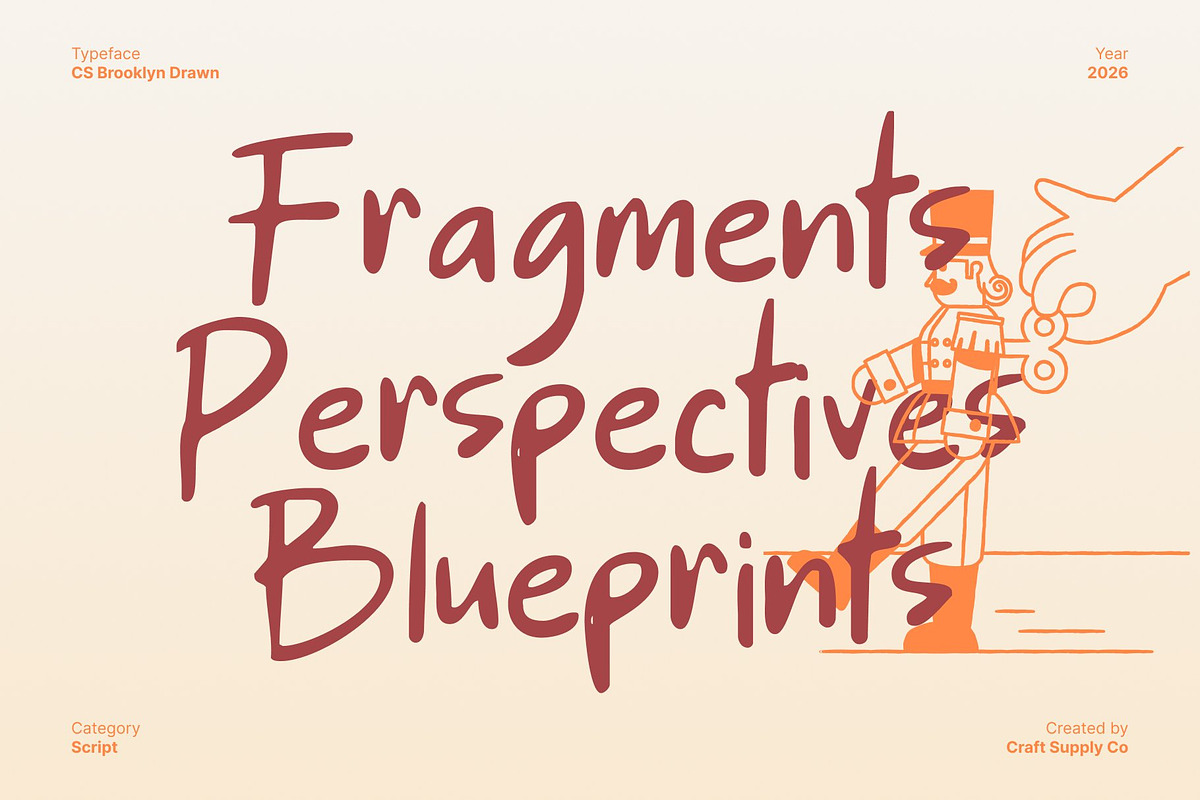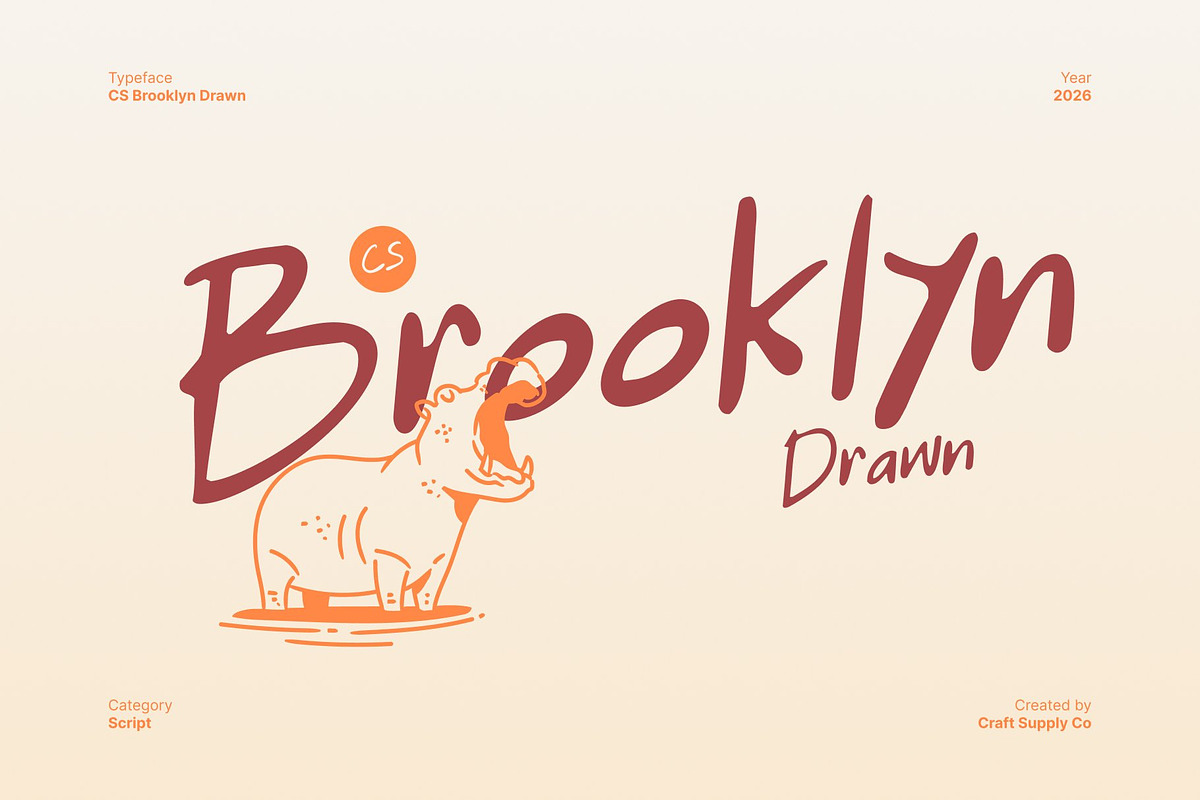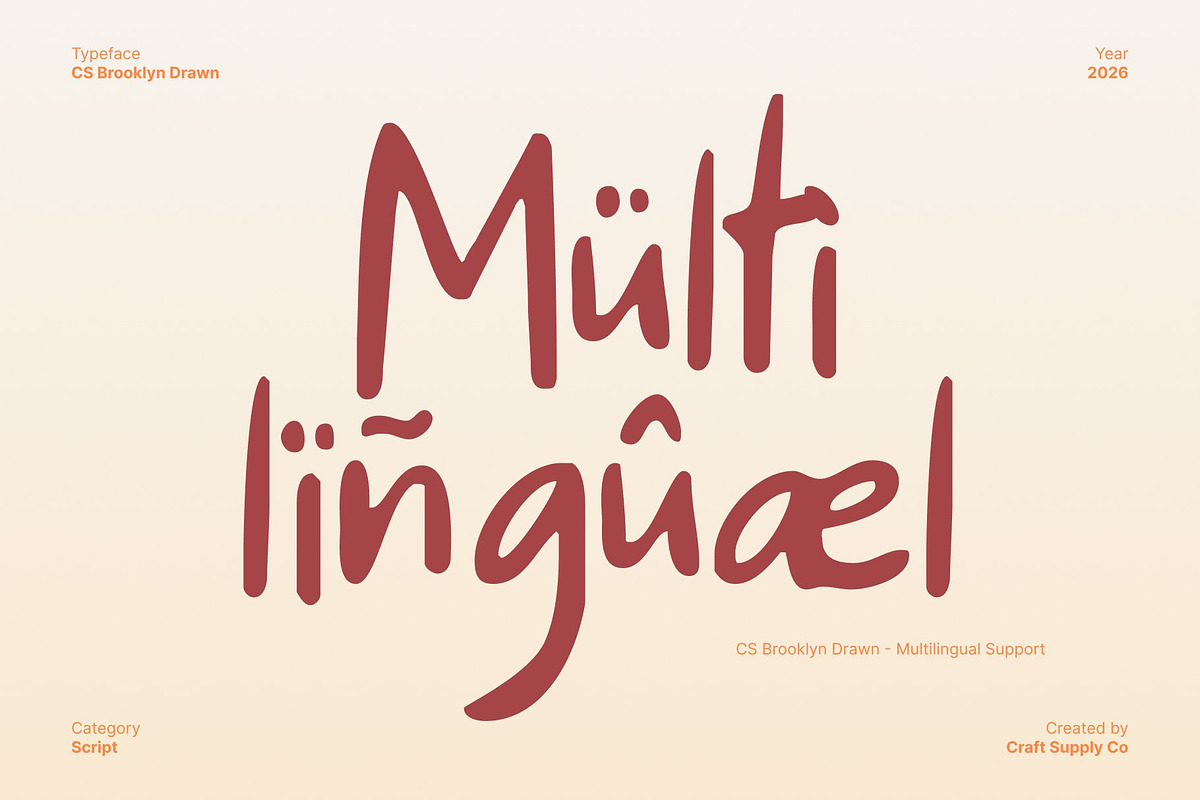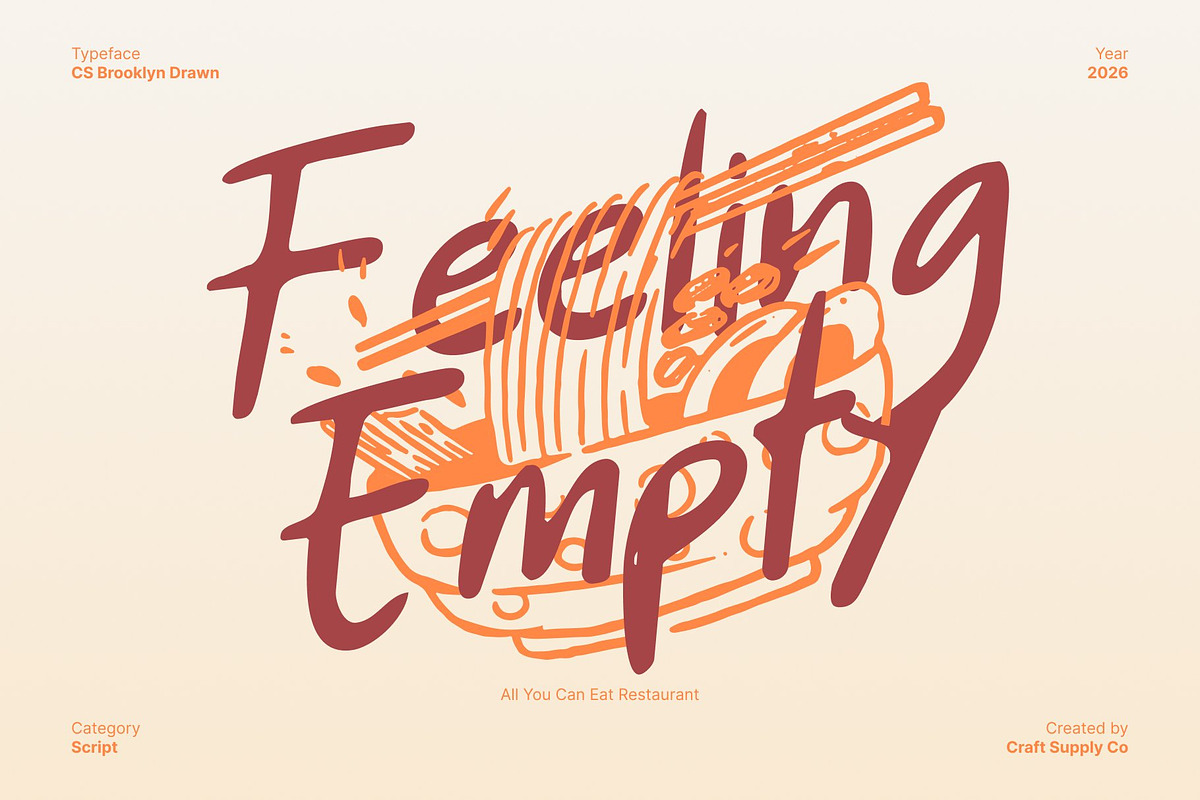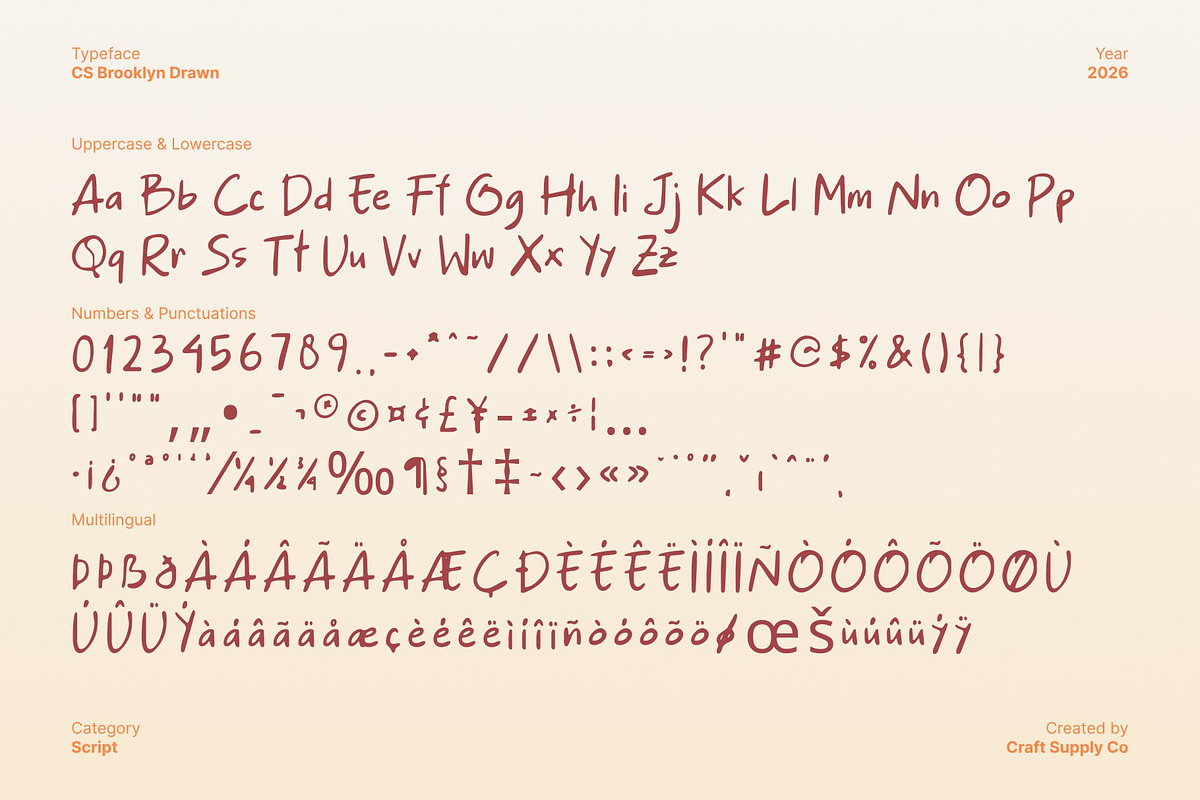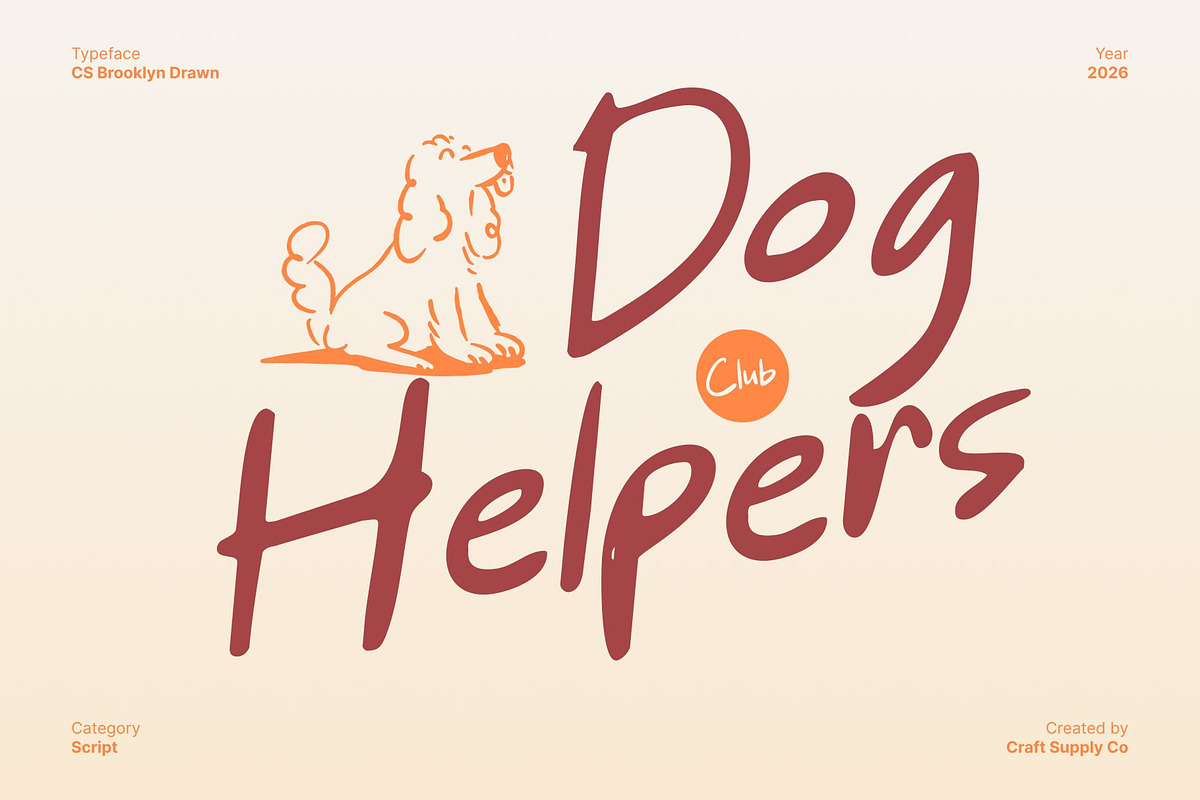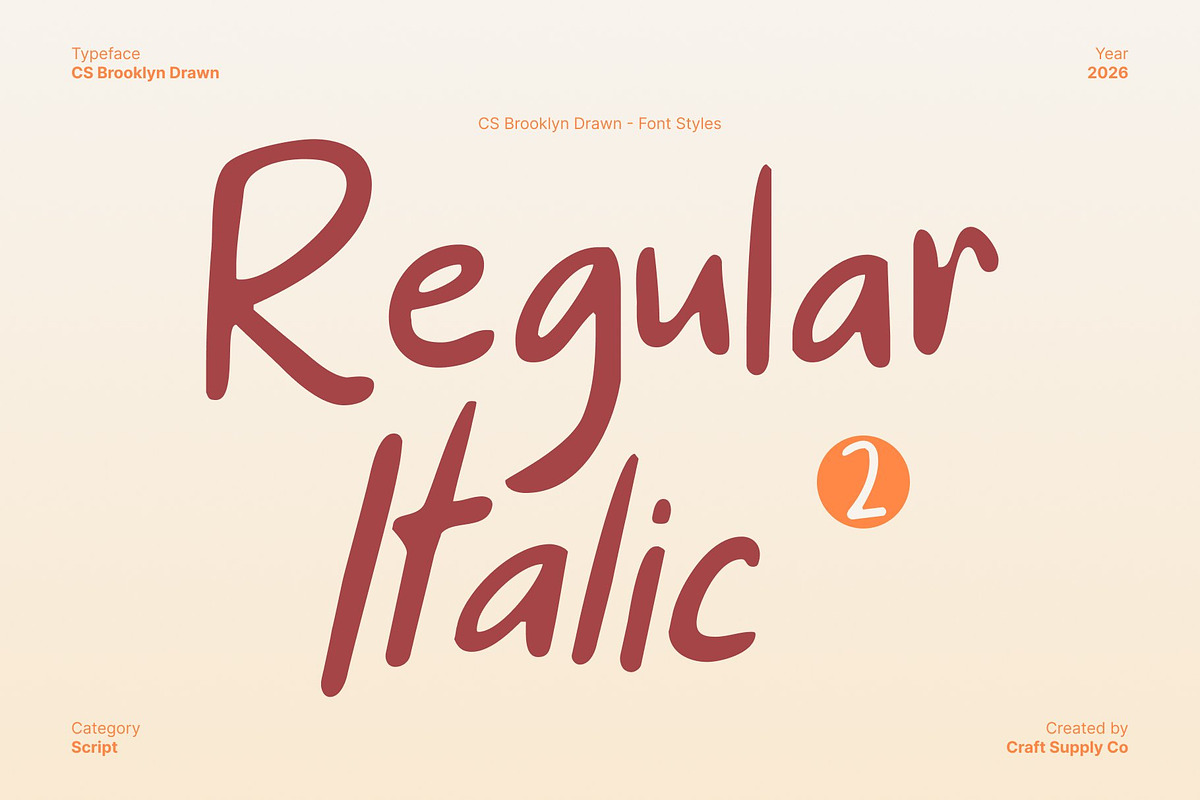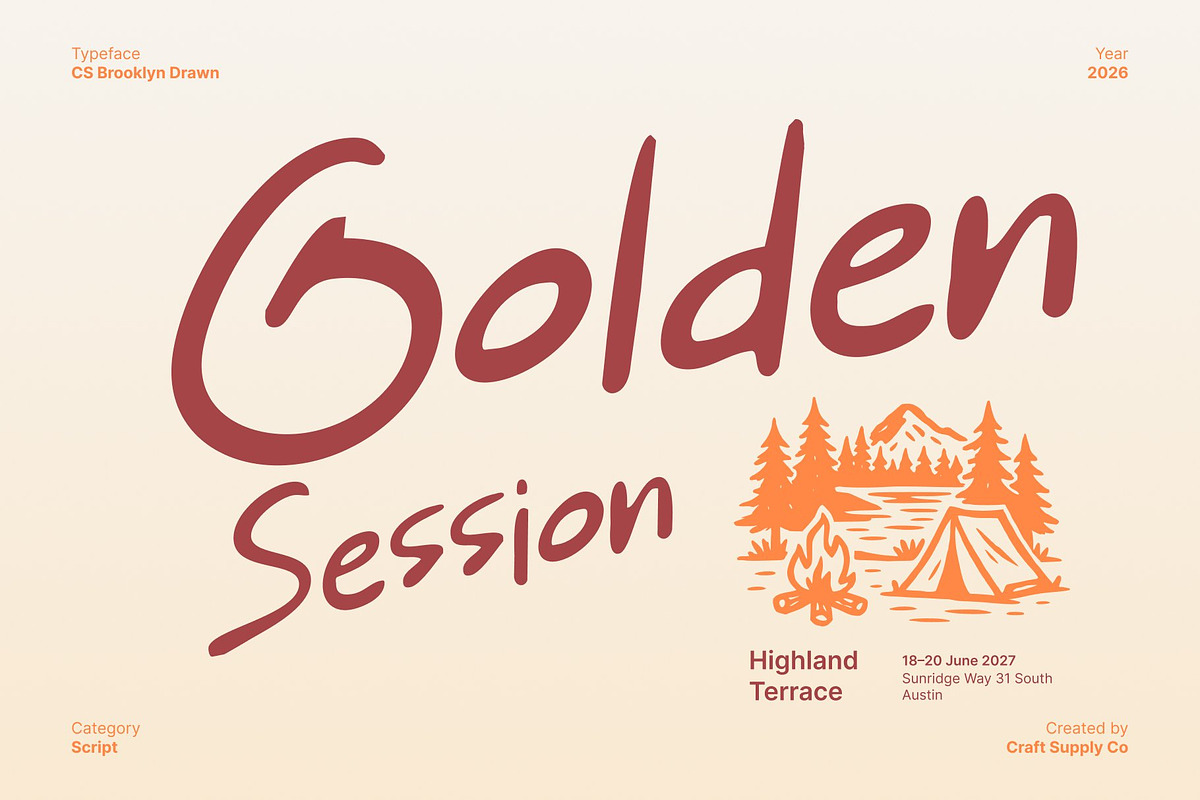
CS Brooklyn Drawn
CS Brooklyn Drawn – Modern Attitude with a Funky Edge
Handwritten Font with a Carefree and Stylish Vibe This is a handwritten font that blends a carefree spirit with a modern sans serif foundation. Its relaxed strokes and natural flow create a confident, expressive look that feels youthful and fresh. Designed to radiate personality, this font brings an effortless, street-inspired attitude to contemporary design.
Funky Flow with Artistic Drawn Texture Every letter moves with an easy, funky rhythm that feels spontaneous and alive. The drawn effect adds a subtle handcrafted texture, giving each character a unique, artistic quality. This human touch enhances its playful nature while keeping the overall form clean and well balanced.
Modern Character for Trend-Driven Designs With its casual yet stylish appearance, this font fits perfectly into modern lifestyle aesthetics. It works beautifully for social media graphics, creative branding, and digital campaigns that value authenticity and bold personality. The mix of funky curves and modern structure gives text a cool, confident presence.
Perfect for Youthful and Creative Projects From apparel branding and posters to digital content and lifestyle visuals, this font shines in designs that demand energy and individuality. Its expressive handwritten style and artistic texture ensure every word feels dynamic, creative, and unmistakably modern.